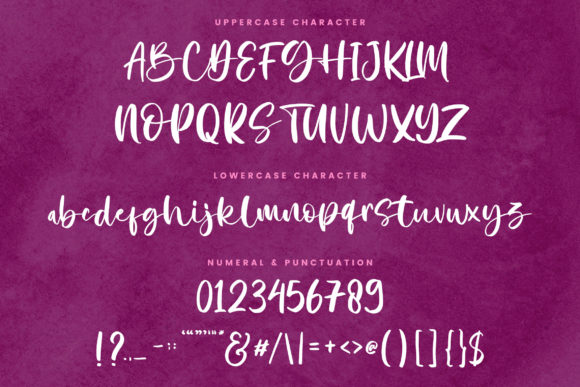
Introduction to Natusha Bayor Font
Have you ever found yourself staring at a blank page, feeling stuck and uninspired? For designers, this can be a frustrating moment, especially when working on a creative project. But what if I told you that a simple font change could spark a new wave of creativity and take your design to the next level?
Enter the Natusha Bayor Font, a stunning script font that’s perfect for adding a touch of elegance to any design. With its high-quality design and transparent background, this font is a valuable resource for designers looking to elevate their work. Whether you’re creating a beautiful wedding invitation, a set of stationery art, or an eye-catching social media post, the Natusha Bayor Font is sure to impress.
Key Features of Natusha Bayor Font
- High-quality font design ideal for creative projects, offering a unique and elegant touch.
- Includes multiple font styles and weights, providing versatility for various design applications.
Honest Review: Natusha Bayor Font
As a designer, I’m always on the lookout for high-quality fonts that can elevate my creative projects. Recently, I had the chance to try out the Natusha Bayor Font, and I must say, it’s been a game-changer.
- ✨ The font’s unique design and style make it perfect for creating eye-catching headlines and titles.
- ✨ The transparent background option gives me the flexibility to layer it over other design elements without any distractions.
However, I do have to mention a few limitations. ⚠️ The font may not be suitable for smaller text sizes, as it can become difficult to read. Additionally, the free version may have some restrictions on commercial use.
Overall, I’m thoroughly impressed with the Natusha Bayor Font. Its high-quality design and transparent background make it an excellent addition to any design project. Whether you’re working on a personal or commercial project, this font is definitely worth checking out.
Using Natusha Bayor Font in Creative Projects
The Natusha Bayor Font is a versatile font that can be used in a variety of creative projects, including graphic design, digital art, and typography. Its transparent background makes it perfect for use on both light and dark backgrounds.
Tips for Getting the Most Out of Natusha Bayor Font
To get the most out of the Natusha Bayor Font, use it in combination with other design resources, such as images and graphics. Experiment with different font sizes, colors, and styles to create a unique and eye-catching design.
The Natusha Bayor Font is perfect for use in a variety of creative projects, including:
- Wedding invitations and party decorations